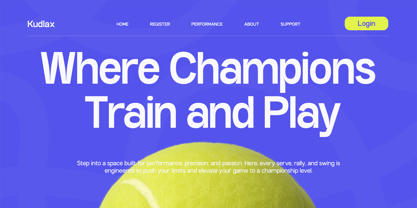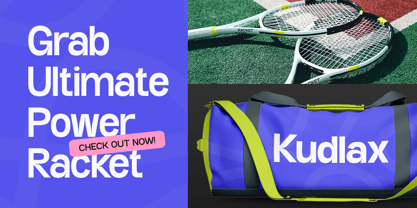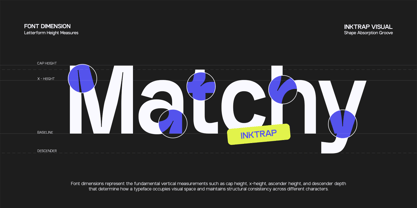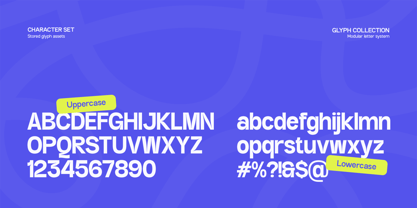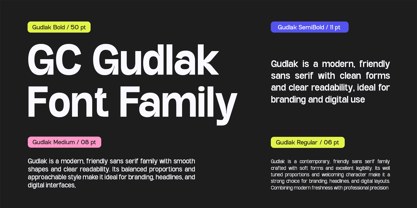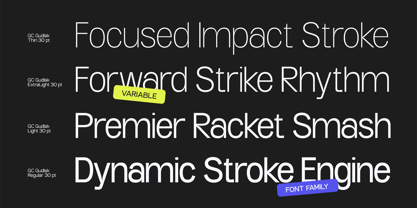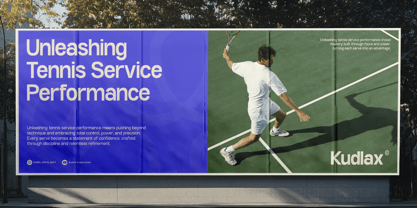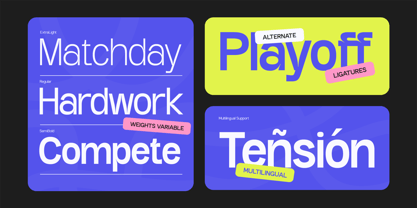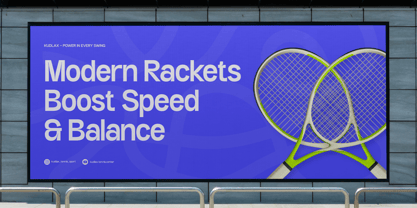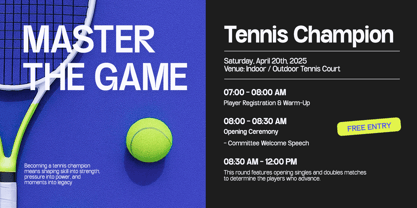
GC Gudlak
The GC Gudlak Font Family was designed by Muhammad Hafiizh Solana and published by Onyx Studio. GC Gudlak contains 8 styles and family package options. More about this family
GC Gudlak – Modern Family Sans is a contemporary sans serif type family designed to deliver a clean, friendly, and versatile voice for modern design systems. Built with balanced proportions and smooth yet confident forms, Gudlak adapts seamlessly across a wide range of visual applications—from branding and digital interfaces to editorial and print design. As a complete font family, GC Gudlak offers a broad range of weights that support clear typographic hierarchy and consistent visual rhythm. Its well-crafted structure ensures excellent readability at both small and large sizes, making it a reliable choice for UI/UX design, modern layouts, presentations, and visual identities. Blending modern simplicity with subtle character, GC Gudlak maintains neutrality without feeling cold or mechanical. Whether used for bold headlines, functional interface text, or minimalist compositions, it provides a strong and flexible typographic foundation built for clarity, adaptability, and everyday usability. Features: Uppercase & Lowercase Numbers & Punctuation Multiple Weights (Family System) Clean & Modern Sans Construction Multilingual Support Bring clarity, balance, and modern versatility into your design system with GC Gudlak – Modern Family Sans.